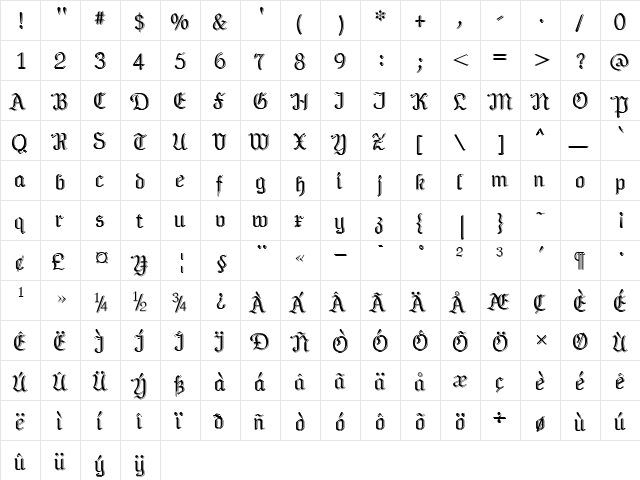
NeuAltischShadow Regular
Design Context for NeuAltischShadow Typeface
NeuAltischShadow brings ornamental detail and strong personality to headlines and identities, where visual impact matters more than quiet functionality.
Font Pairing: Pair with a clean neutral sans-serif for body copy to let NeuAltischShadow's character lead without overwhelming the composition.
Pro Tip: Treat NeuAltischShadow as the centrepiece of your typographic hierarchy. One strong heading set in a decorative face can carry an entire layout.